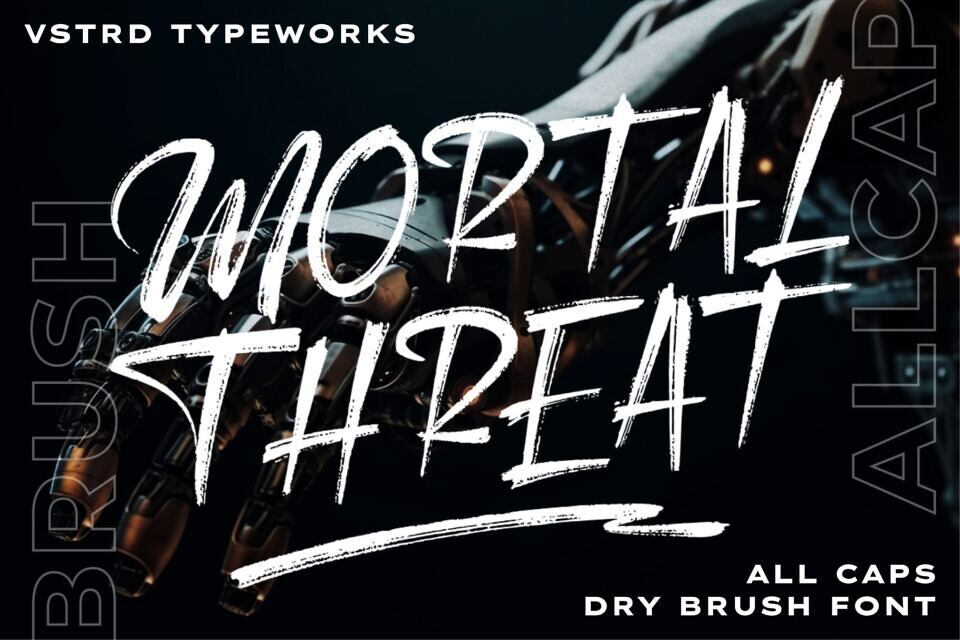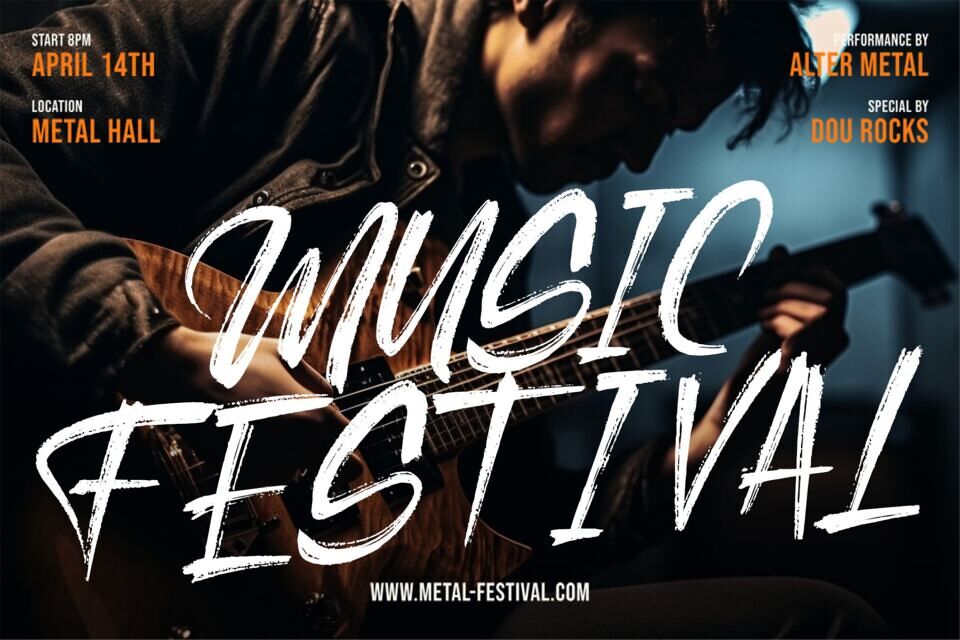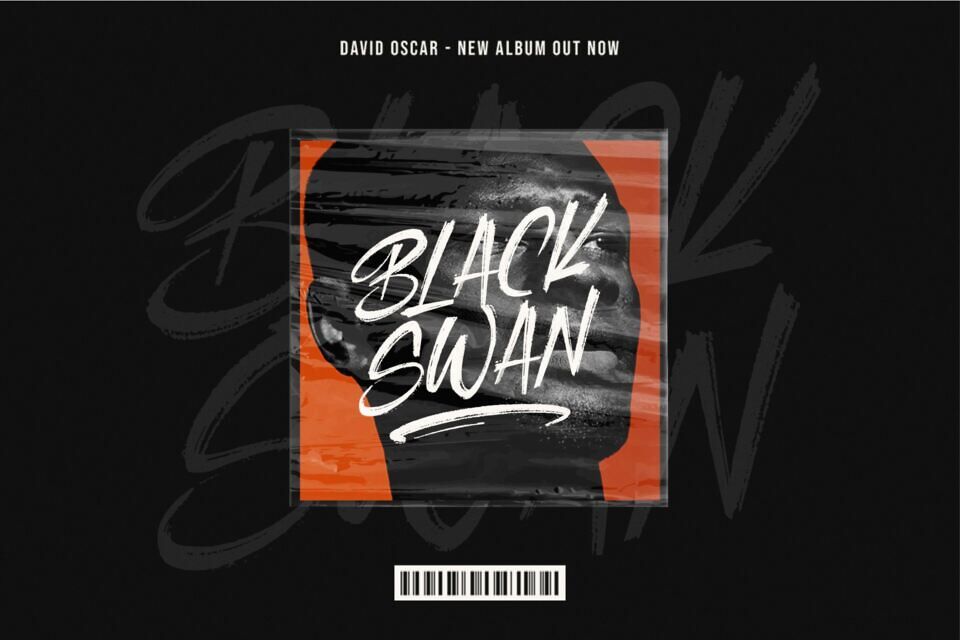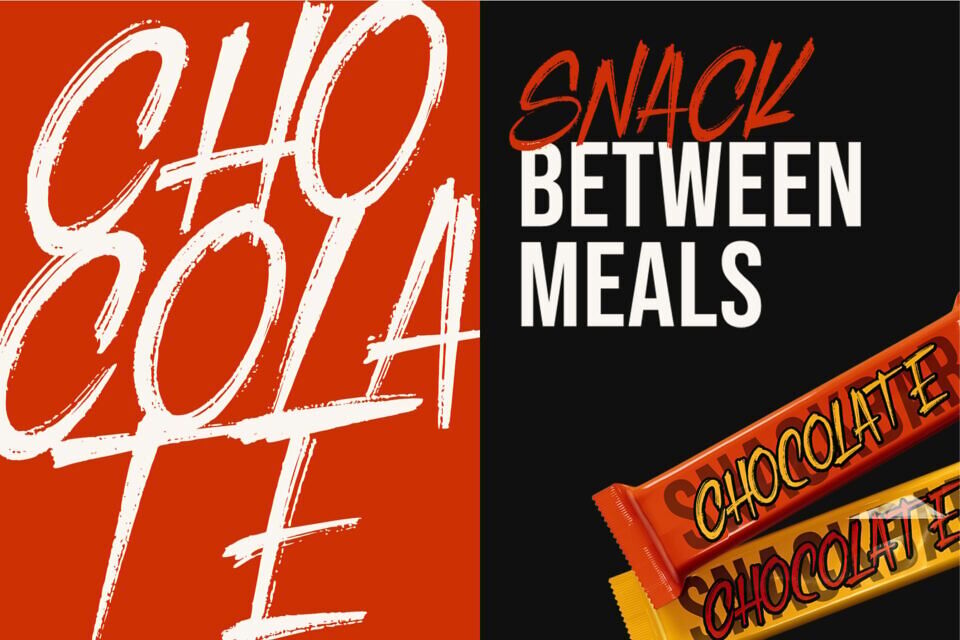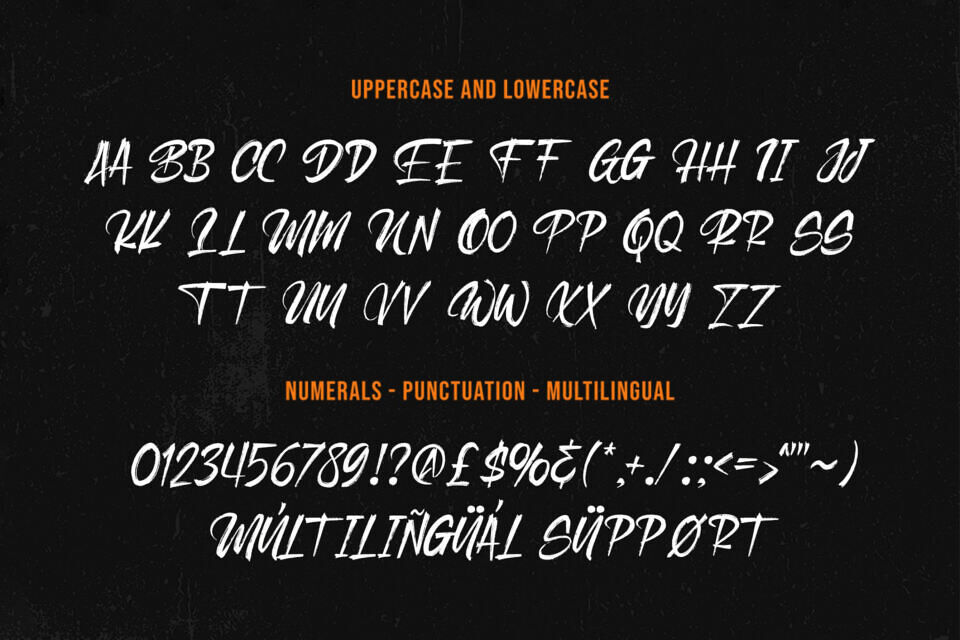
Mortal Threat Font
Bring energy and attitude to your designs with Mortal Threat, a powerful dry brush font crafted from natural, hand brush strokes. With its raw, expressive strokes and dynamic texture, this font is perfect for projects that demand a bold, rebellious edge.
Ideal for logos, Apparel Campaign, food & beverage branding, promotional campaigns, video titles, product packaging, quotes, posters, flyers, t-shirts, and eye-catching text overlays, Mortal Threat adds a handcrafted, urban feel to any design.
Designed by: Vstrd Typeworks